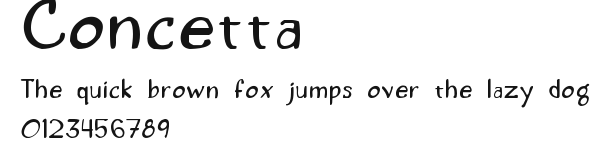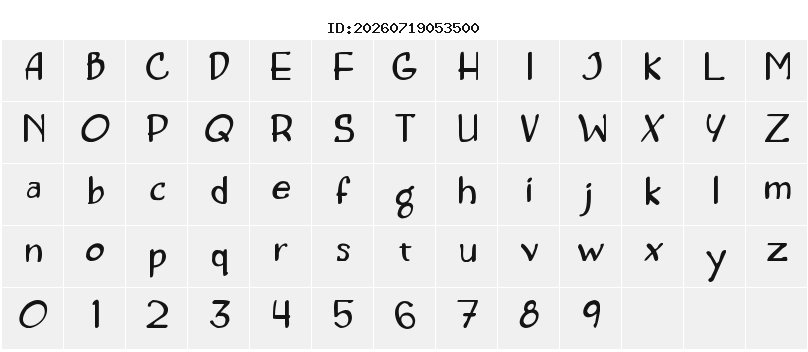
About Concetta.ttf
Concetta.ttf is a modern, elegant sans-serif font designed for ultimate readability and visual harmony. Perfect for branding, headlines, web design, and print materials.